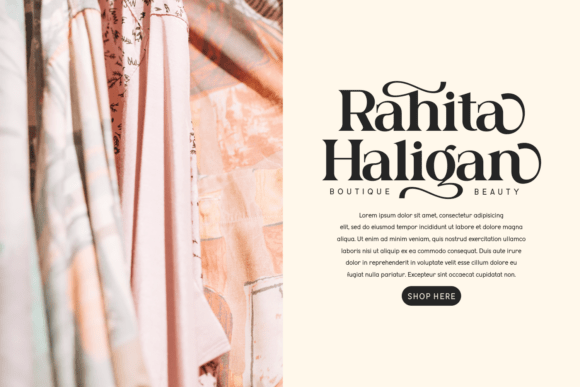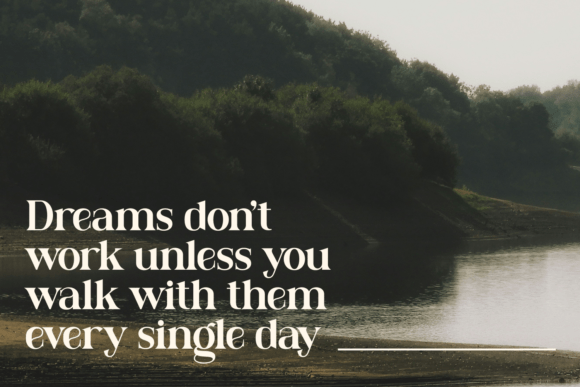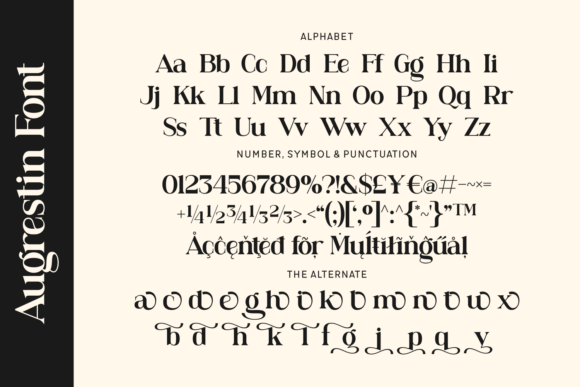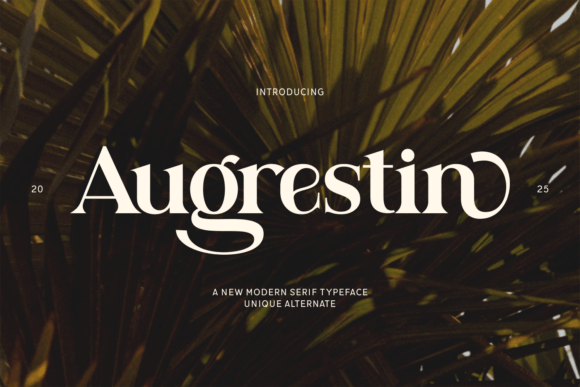
Introducing Augrestin Font: Elevate Your Design with Timeless Elegance
In the world of typography, a font can make or break the visual identity of a brand. For designers and crafters seeking to elevate their projects with a touch of sophistication, Augrestin Font is an exceptional choice. This modern serif typeface seamlessly blends classic elegance with artistic innovation, making it perfect for a wide range of applications, from branding and editorial design to luxury packaging.
The Essence of Augrestin Font
Augrestin is more than just a font; it’s a statement of style and refinement. Its gracefully exaggerated curves and distinctive alternates give your typography a fresh, high-end feel that’s sure to captivate your audience. Whether you’re working on a luxury brand, a fashion magazine, or a high-end product package, Augrestin brings an effortlessly chic and stylish character to any visual identity.
Key Features of Augrestin Font
• Modern Serif Typeface: Augrestin boasts a contemporary serif design that feels both modern and timeless.
• Elegant Curves: The font’s gracefully exaggerated curves add a touch of sophistication and fluidity to your typography.
• Distinctive Alternates: With a range of alternate characters, Augrestin offers versatility and creativity for your design projects.
• High-End Feel: Perfect for projects that demand a luxurious and premium aesthetic.
Applications of Augrestin Font
Augrestin’s versatility makes it suitable for a variety of design projects. Here are some ideal applications:
• Branding: Establish a sophisticated and elegant brand identity with Augrestin’s refined typography.
• Editorial Design: Elevate your magazine, newspaper, or digital publication with a font that exudes professionalism and style.
• Luxury Packaging: Add a touch of elegance and refinement to your product packaging, making it stand out in the market.
• Web Design: Create a premium and engaging online experience with Augrestin’s modern and readable design.
Why Choose Augrestin Font?
In a sea of fonts, Augrestin stands out for its unique blend of classic elegance and modern flair. Here are a few reasons why designers and crafters are gravitating towards Augrestin:
• Unique Aesthetic: Augrestin’s distinctive curves and alternates offer a fresh take on traditional serif typography.
• Versatility: From digital interfaces to print materials, Augrestin adapts seamlessly across various mediums.
• High Readability: Despite its elegant design, Augrestin maintains high readability, making it suitable for body text and headlines alike.
Tips for Using Augrestin Font Effectively
To maximize the impact of Augrestin in your designs, consider the following tips:
• Pair with Simplicity: Let Augrestin be the focal point by pairing it with simpler fonts or clean design elements.
• Experiment with Alternates: Take advantage of Augrestin’s alternate characters to add rhythm and interest to your typography.
• Adjust Weight and Size: Play with different weights and sizes to create visual hierarchy and emphasize key messages.
Augrestin Font is a game-changer for designers and crafters looking to infuse their projects with a sense of sophistication and style. Its modern serif design, elegant curves, and versatile alternates make it an ideal choice for a wide range of applications. Whether you’re aiming to create a luxurious brand identity, an elegant editorial design, or eye-catching luxury packaging, Augrestin is the perfect companion. Elevate your typography and give your visual identity the high-end feel it deserves with Augrestin Font.